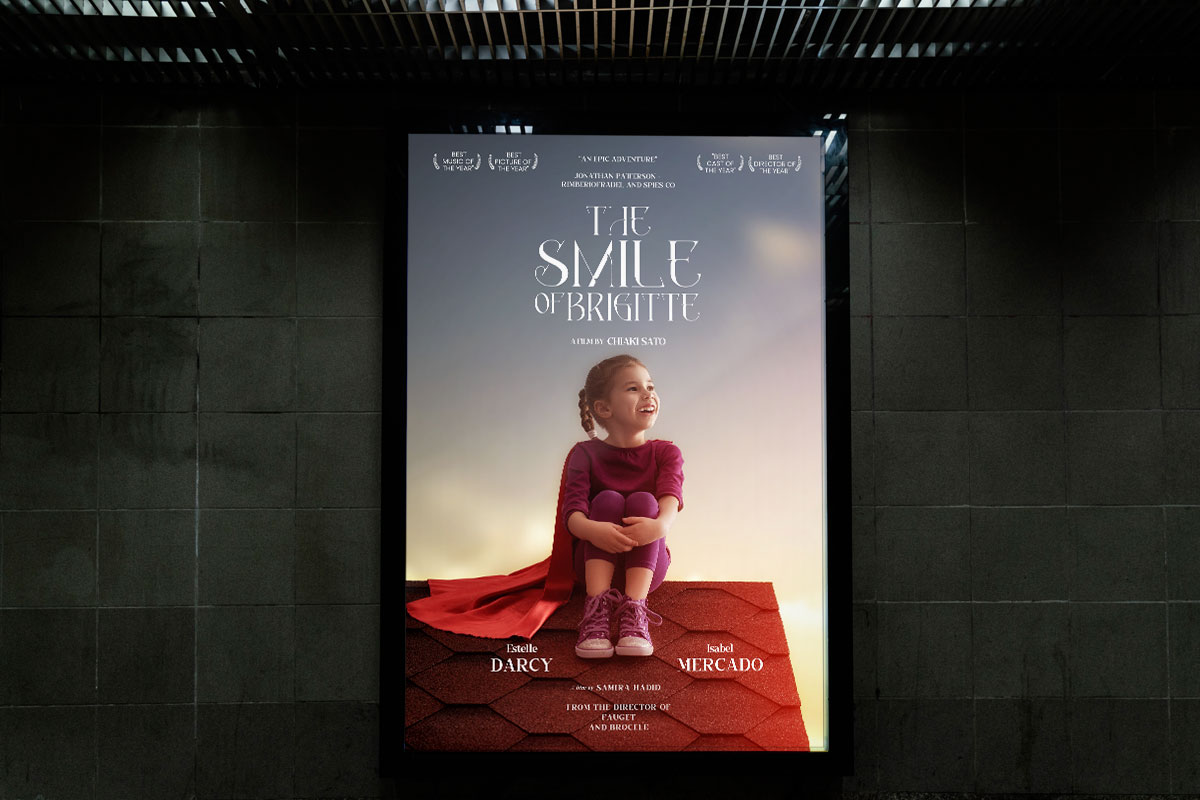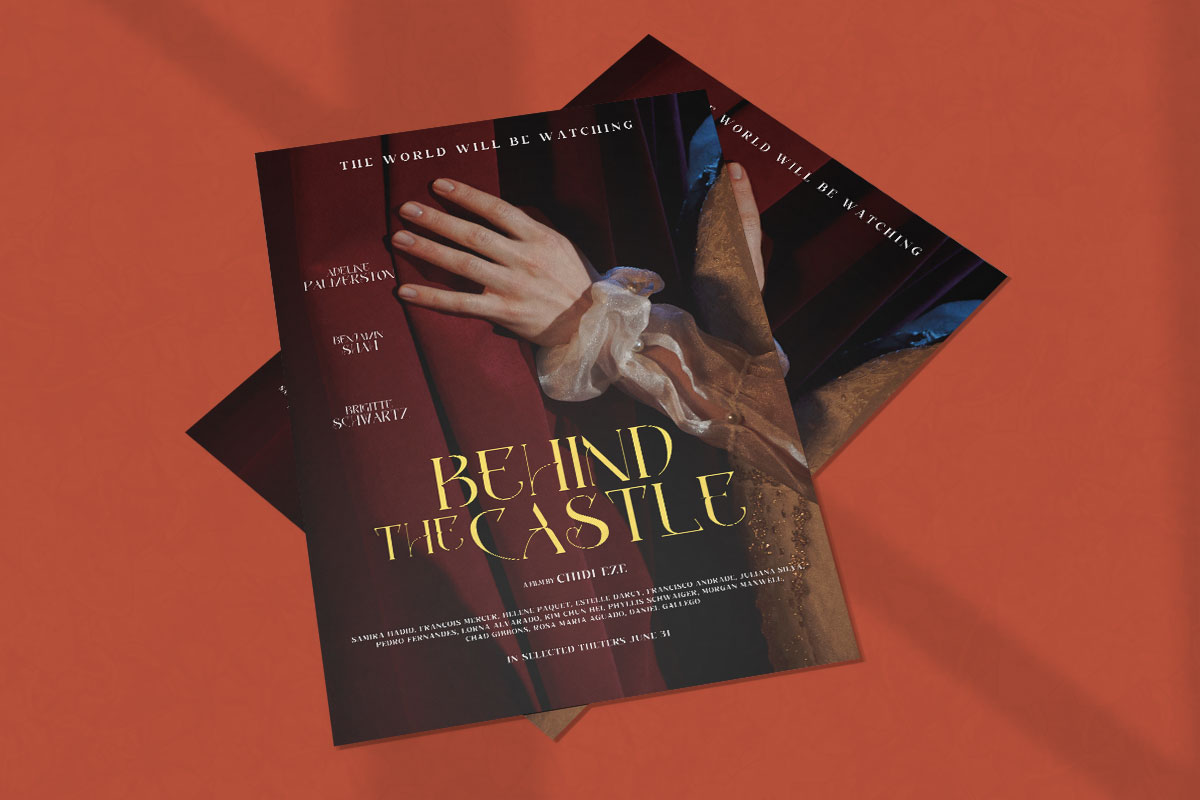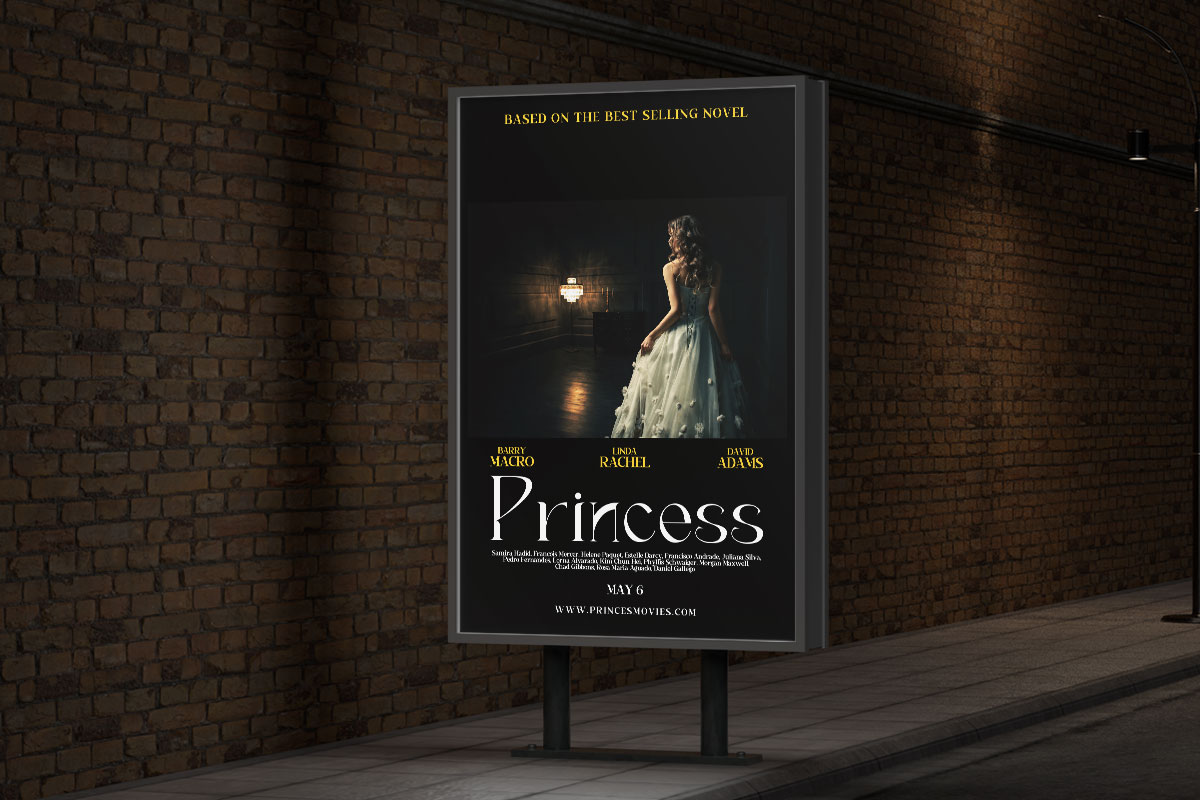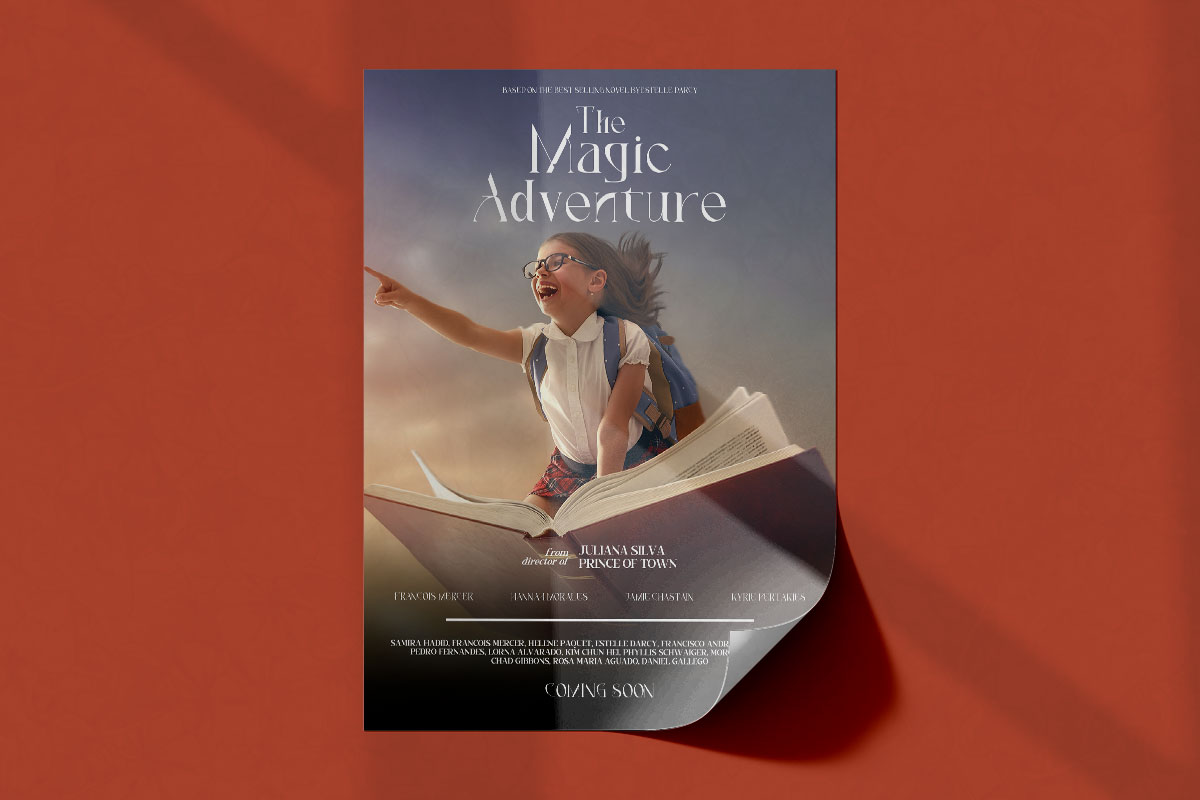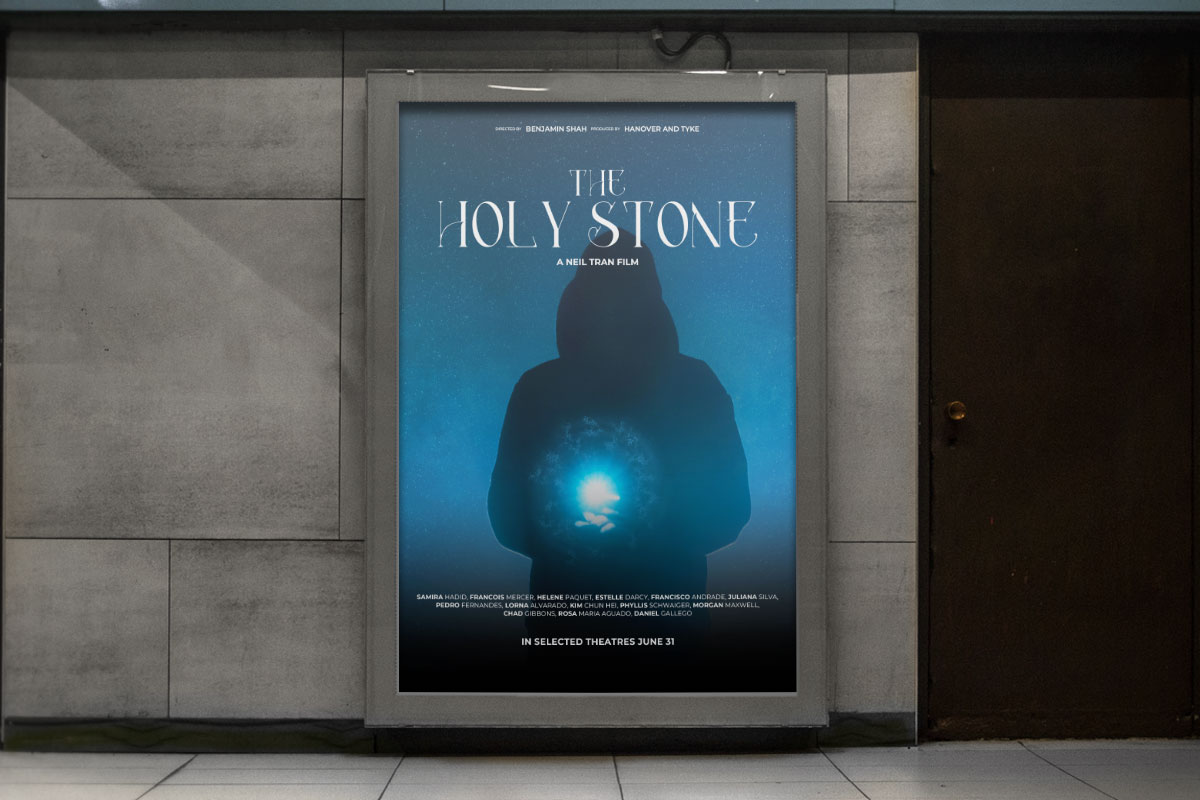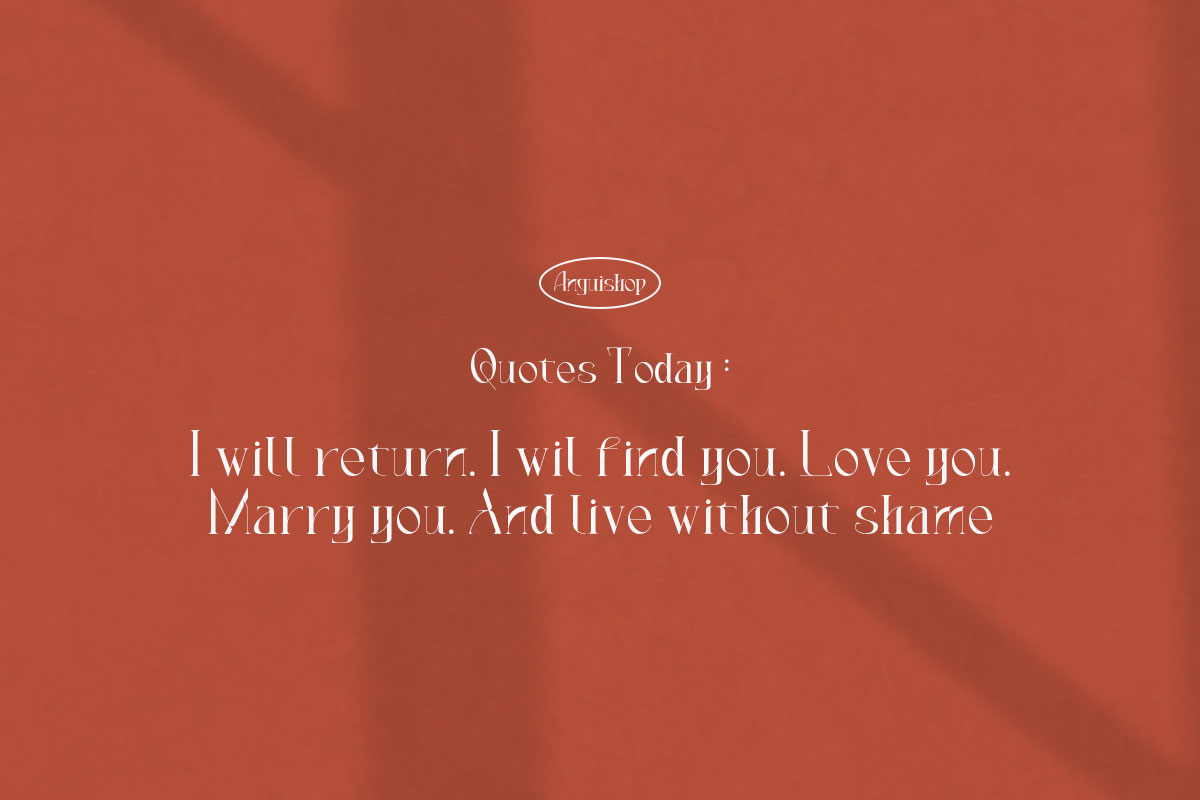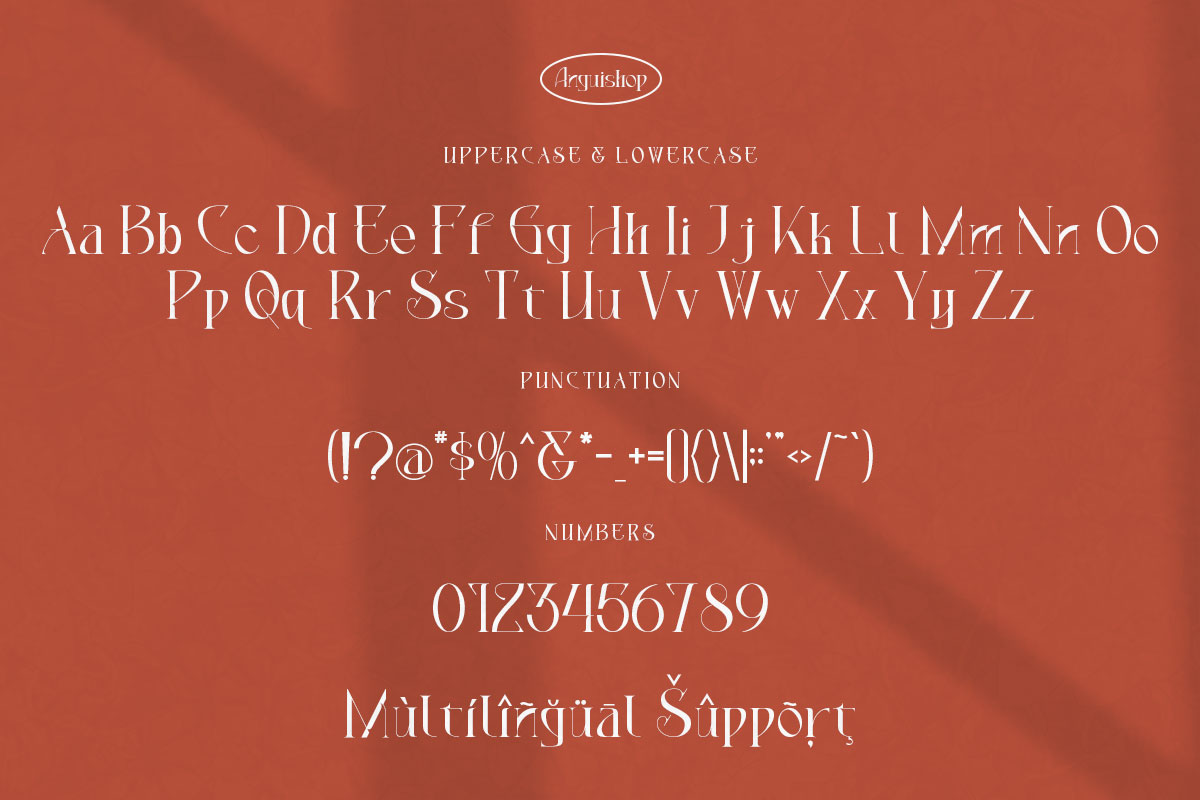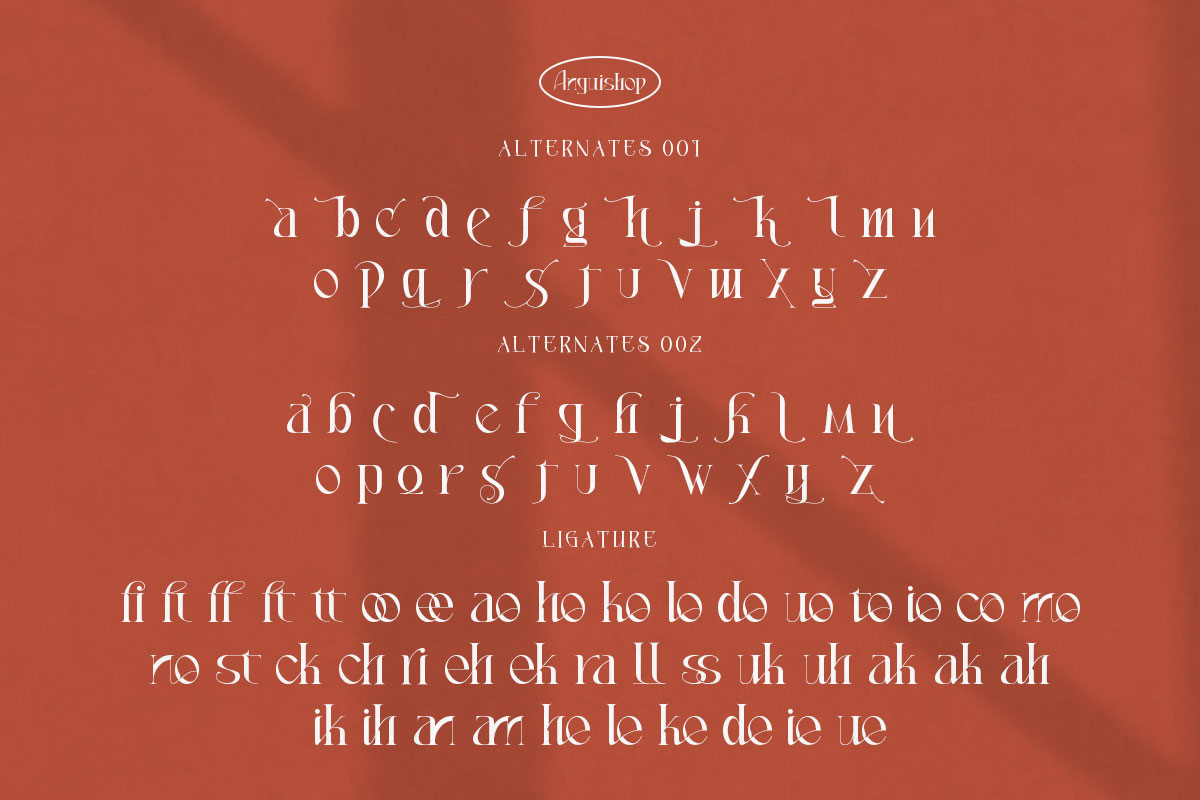
Anguishop Classy Serif Font As the name suggests, Anguishop Classy Serif Font is a typeface that exudes modern and classy. Illegible font but artistic, this font can serve many uses depending on the user. This font must be used with the right size so, that it will look good. This font is a serif style typeface. Anguishop Classy Serif Font can be used for some productions, digitally and in promotions on the web and social media, as well as in printed forms such as magazines and posters. The products with this font are fashion and beauty. Magazines that cover fashion and beauty topics can use Anguishop Classy Serif Font for their covers. This font can use as a brand on product packaging. This font can be applied in screen printing, both in small and large quantities. In modern business needs, Anguishop Classy Serif Font is also suitable for personal name cards and business signage that denotes a place, such as cafes, boutiques, and make-up shops. Anguishop Classy Serif Font is one of the best fonts for wedding fonts and similar formal occasions. This font can be applied to invitation cards and event banners. Our collection of Serif fonts is compatible for use as; Figma Fonts, Canva Fonts, Freepik Fonts, and Adobe Fonts. They also work as Windows Fonts and Apple Fonts. For your social media needs, you can use and install fonts in our collection of serif fonts to use as Instagram Fonts, Facebook Fonts, and Twitter Fonts.